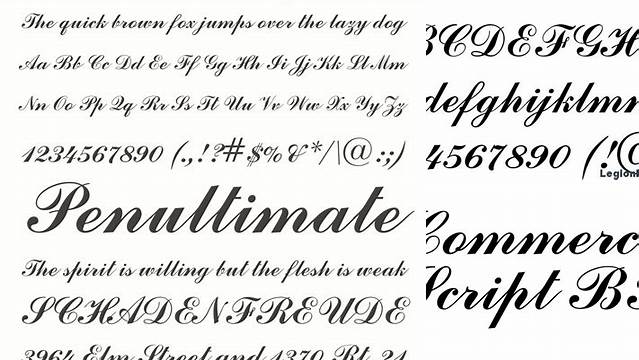
Hey everyone, and welcome back to the blog! Today, we're diving deep into something super useful for all you designers, marketers, and content creators out there: the Commercial Script BT font. If you've ever stumbled upon a sleek, professional-looking design and wondered what font it was, chances are you've seen something similar to this classic script. We're going to explore what makes Commercial Script BT so special, where you can find free download options, and how you can best utilize this versatile typeface in your projects. So, grab your favorite beverage, get comfy, and let's get this font party started!
Understanding the Appeal of Commercial Script BT
The Commercial Script BT font is a real workhorse when it comes to adding a touch of elegance and sophistication to your designs. It’s not just any script font; it has a distinct character that balances formality with a friendly, approachable feel. Think of it as the perfect handshake – firm, professional, but welcoming. This font was designed to be highly legible, which is a huge plus for script fonts, as many can be notoriously difficult to read, especially at smaller sizes. Commercial Script BT, however, manages to maintain its clarity without sacrificing its stylish, flowing script aesthetic. This makes it a go-to choice for businesses that want to convey a sense of trustworthiness and established quality. It's the kind of font you see on high-end product packaging, elegant business cards, and official company letterheads. Its clean lines and smooth curves give it a timeless quality that transcends fleeting design trends. When you're aiming for a look that's both classic and contemporary, Commercial Script BT really shines. Its versatility means it can adapt to a wide range of applications, from branding and advertising to web design and print materials. We'll delve into how you can leverage this unique appeal in your own work later on, but for now, just appreciate its inherent charm and professionalism. It’s a font that speaks volumes without shouting, conveying a message of refined taste and reliability, which is exactly what many brands are looking to communicate to their audience. The subtle flourishes and consistent stroke weight contribute to its overall polished appearance, making any text set in this font feel instantly more premium and impactful. It's this careful design consideration that sets Commercial Script BT apart and keeps it a relevant and sought-after typeface in the design world.
Why Commercial Script BT is a Designer's Favorite
So, why do designers keep coming back to Commercial Script BT? It's a combination of factors, really. Firstly, its professional yet approachable vibe is a huge selling point. Unlike overly ornate scripts that can look fussy or hard to read, Commercial Script BT strikes a perfect balance. It's sophisticated enough for formal documents but friendly enough for marketing materials aimed at a broader audience. Secondly, its excellent legibility is a game-changer. Designers often struggle with script fonts because they can become a jumbled mess when used in smaller sizes or for longer blocks of text. Commercial Script BT, however, is crafted with readability in mind. You can use it for headlines, subheadings, and even body text in certain contexts, and it will still look clear and sharp. This versatility means you don't need to switch fonts as often, streamlining your design process. Another reason for its popularity is its timeless design. It doesn't scream 'trendy' or 'of the moment,' which means designs using Commercial Script BT will remain relevant for years to come. This longevity is incredibly valuable in branding and marketing, where consistency and lasting appeal are key. Furthermore, its smooth, flowing strokes give it an elegant and polished feel. It adds a touch of class and refinement to any design, making it suitable for premium brands, luxury products, and high-end services. Think of it as the little black dress of fonts – always appropriate, always stylish. Finally, the sheer availability of free download options (which we'll discuss more) makes it accessible to everyone, from students and startups to established professionals. This accessibility, combined with its inherent design qualities, solidifies its status as a favorite in the designer's toolkit. It’s a font that consistently delivers on aesthetics and functionality, making it a reliable choice for a multitude of projects. Its ability to evoke a sense of tradition and quality makes it particularly effective for businesses aiming to build trust and convey a strong brand identity. The careful balance between script-like fluidity and crisp letterforms ensures that it never feels overwhelming, even in extended use, making it a truly adaptable and valuable asset for any designer's library. It's a typeface that truly understands the nuances of visual communication and delivers results that are both aesthetically pleasing and strategically effective.
Exploring Different Styles of Commercial Script BT
While the core Commercial Script BT font offers a consistent and elegant style, it's worth noting that sometimes, variations or similar-looking fonts might appear under slightly different names or with minor stylistic tweaks. When you're looking for a free download, you might encounter slightly different interpretations. Some might have a bit more slant, others might feature slightly more pronounced loops or tails, and some might offer a bolder weight for greater impact. The key is to look for that characteristic blend of professionalism and script-like fluidity that defines Commercial Script BT. When you're browsing free font sites, pay attention to the details. Does it have that clean, readable structure? Does it offer a sense of refined elegance without being overly decorative? If the answer is yes, then you've likely found a great option. Sometimes, designers might release families of fonts that include the script style alongside complementary sans-serif or serif fonts, which can be incredibly useful for creating cohesive branding. While the original Commercial Script BT might have specific weights and styles, exploring these related families can broaden your options. The goal is to find a font that captures the essence of Commercial Script BT – that polished, professional, yet inviting script feel. Don't be afraid to experiment with different download sources and compare the styles you find. Often, these free versions are inspired by classic typefaces like Commercial Script BT and aim to provide a similar aesthetic. The beauty of exploring these variations is that you might discover a unique twist that perfectly suits your project's needs. Just remember to check the licensing for any font you download, especially if you plan to use it for commercial purposes. Many free fonts come with specific usage rights, so it's always best to be informed. This exploration allows for greater creative freedom and the ability to find that perfect typographic match, ensuring your designs stand out while maintaining a professional and cohesive look. The subtle differences can sometimes be exactly what a design needs to feel truly original and tailored to its specific purpose, offering a wider palette of expressive possibilities for designers.